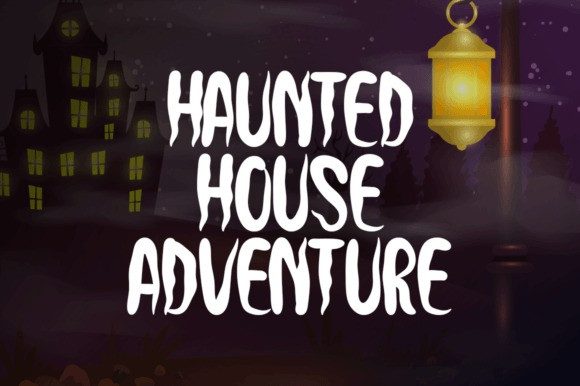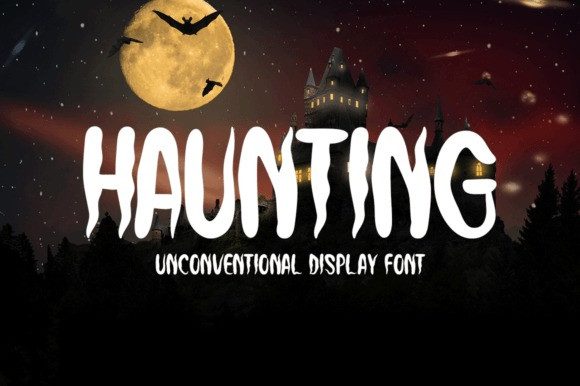
Haunting Font
Haunting Font is a unique and visually stunning display typeface that has been meticulously created to enhance a wide range of creative applications, including flyers, photo frames, music covers, posters, image sliders, printed media, logos, t-shirt designs, and stationery.